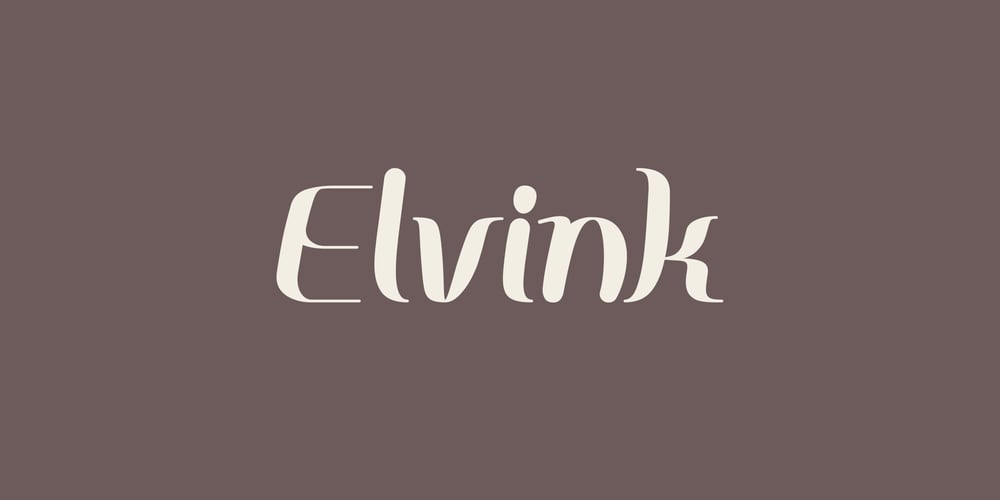
Elvink
Elvink font
Elvink Font Family was designed by Taka Ikari and published by Outerend. Elvink contains 1 styles and family package options. Introducing ‘Elvink,’ a modern display sans serif font that seamlessly blends a slight handwritten feel with playful, interesting strokes. Its charming character makes it perfect for branding and seasonal events, adding a cute and approachable touch to your designs. Ideal for everything from invitations to product packaging, ‘Elvink’ brings a unique personality that stands out while maintaining a clean, contemporary aesthetic. Elevate your projects with this delightful font!